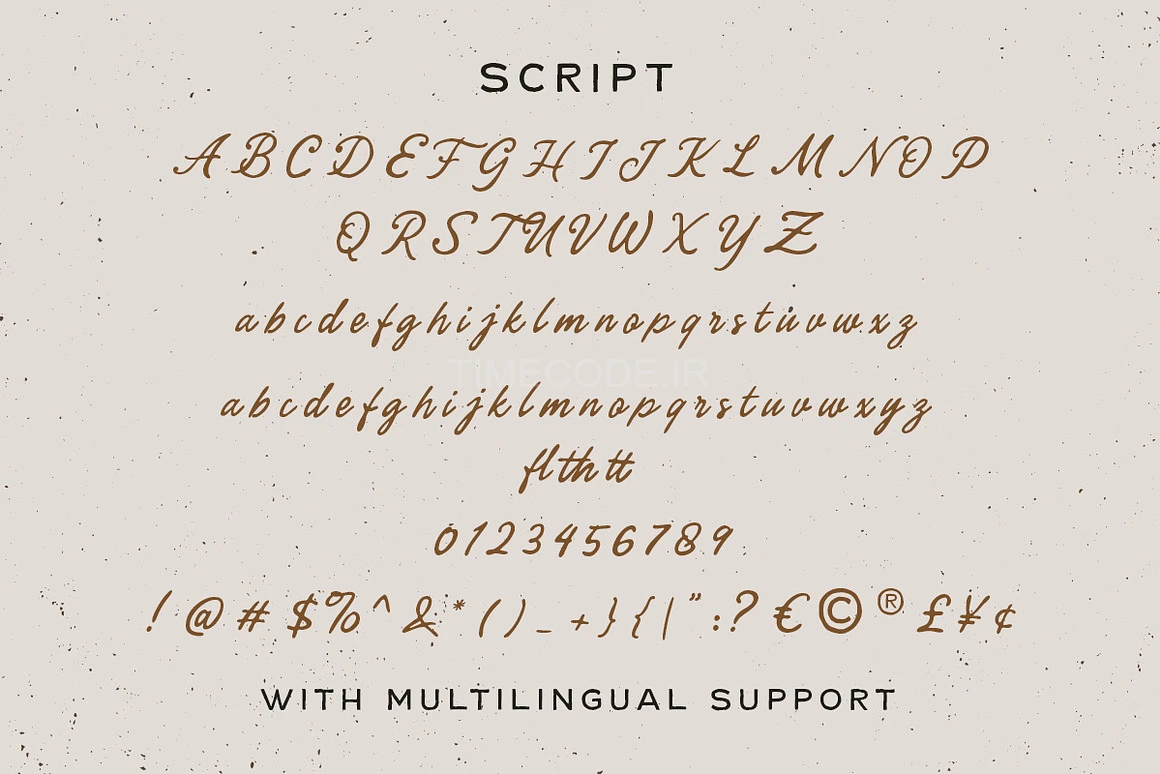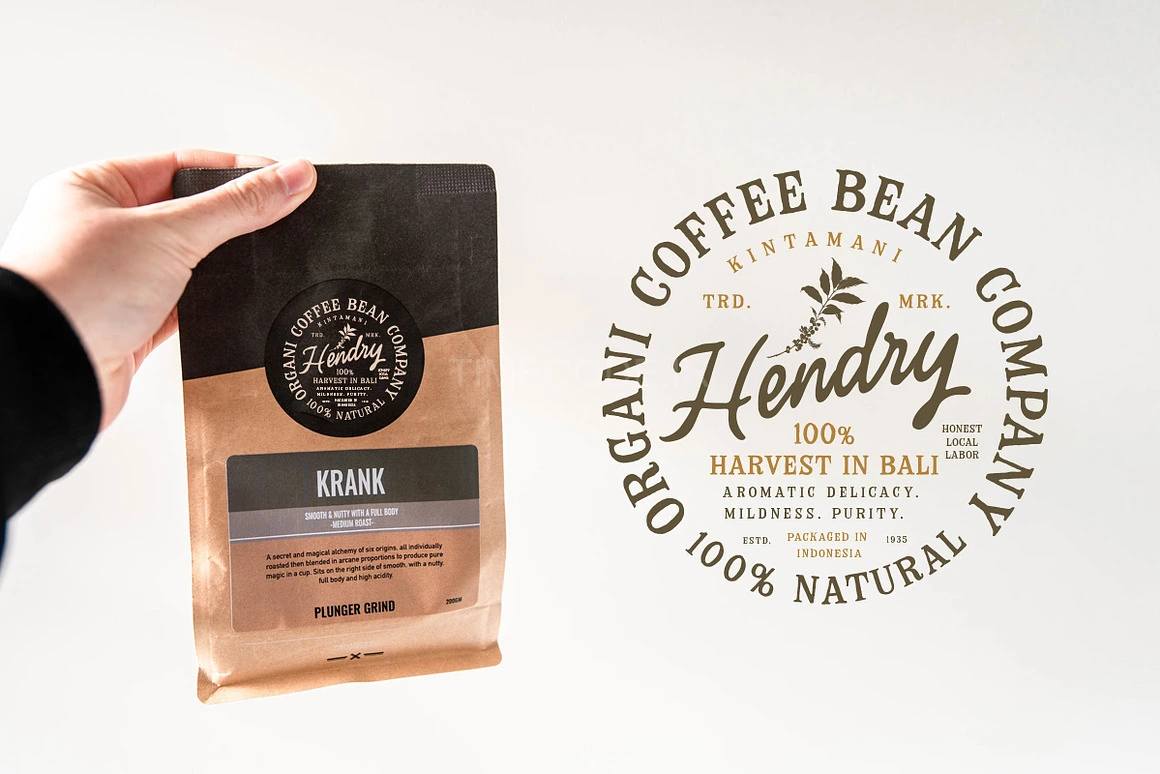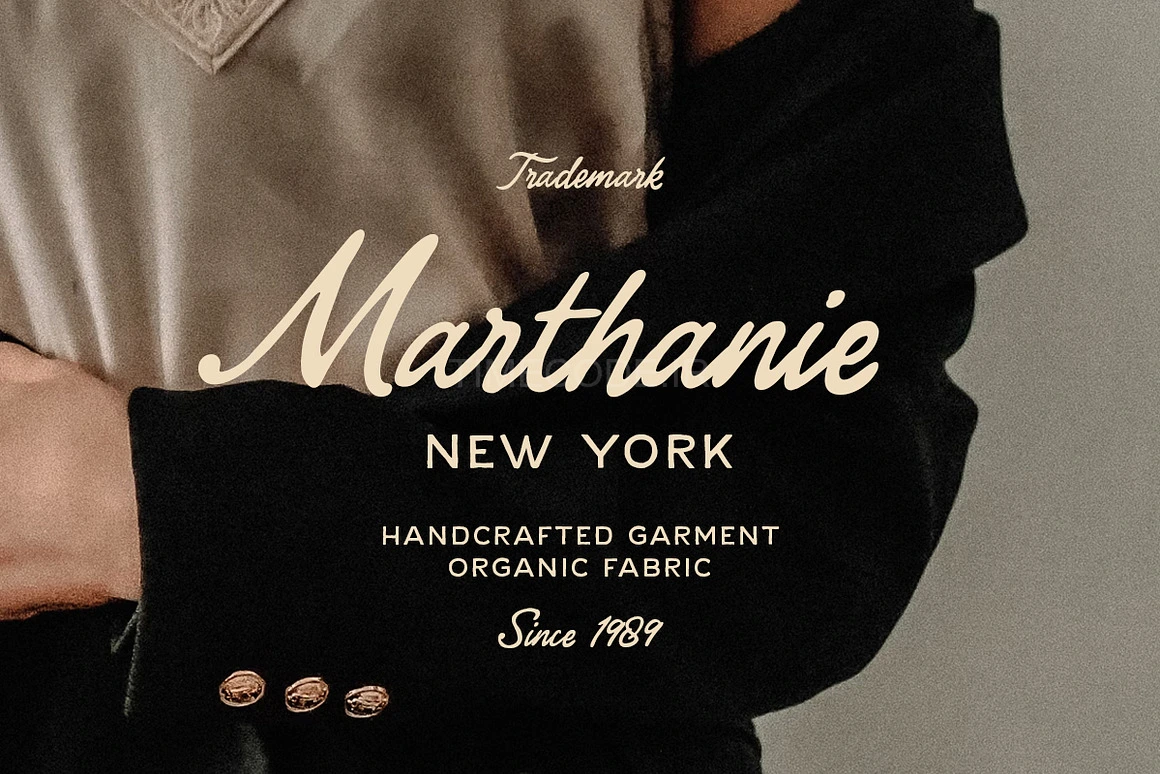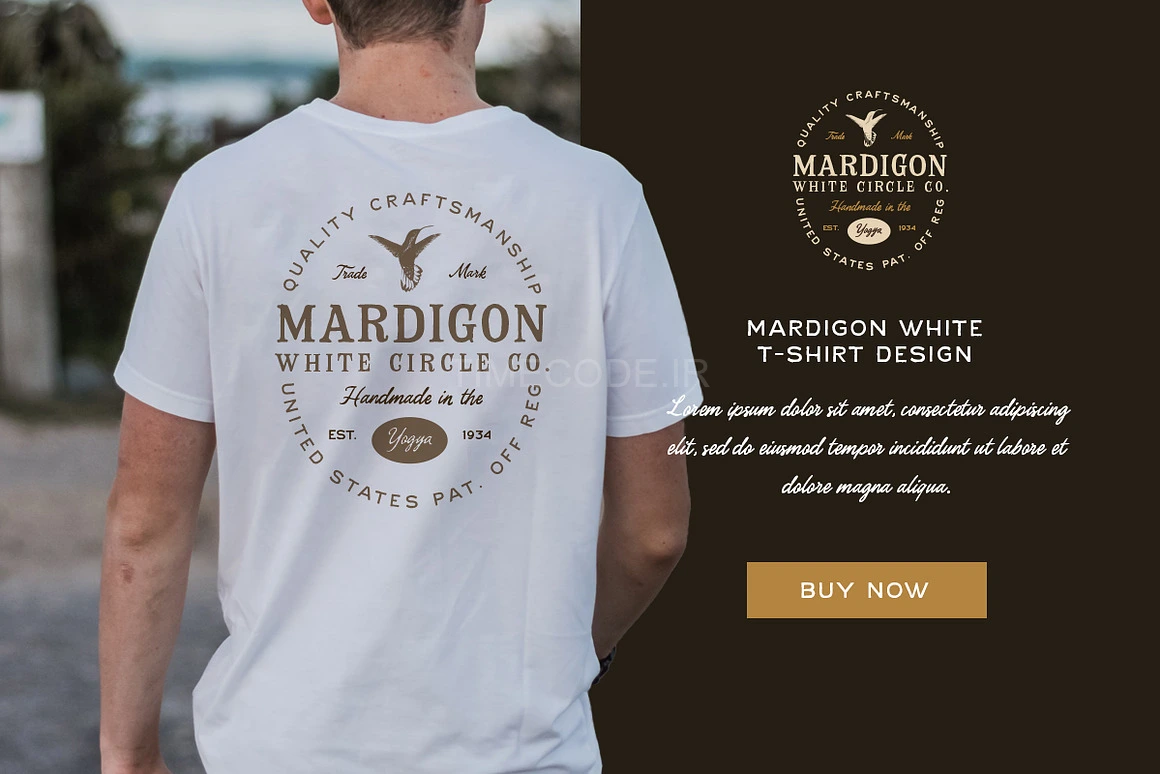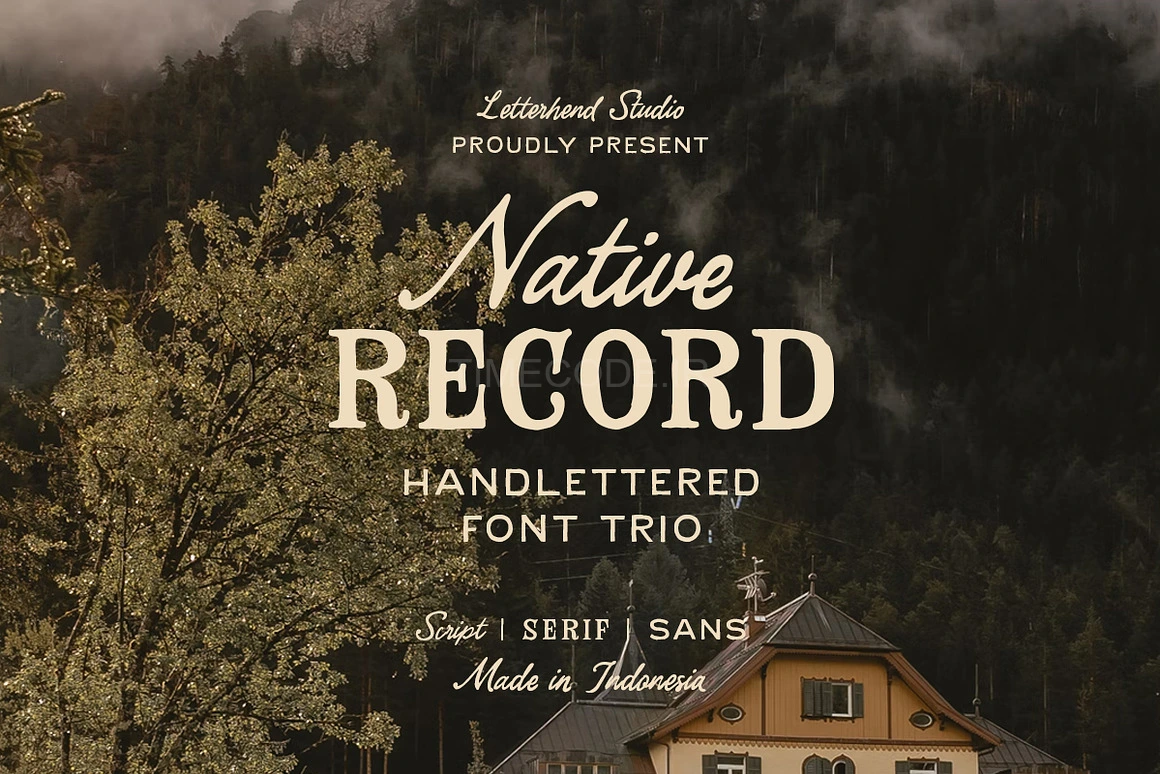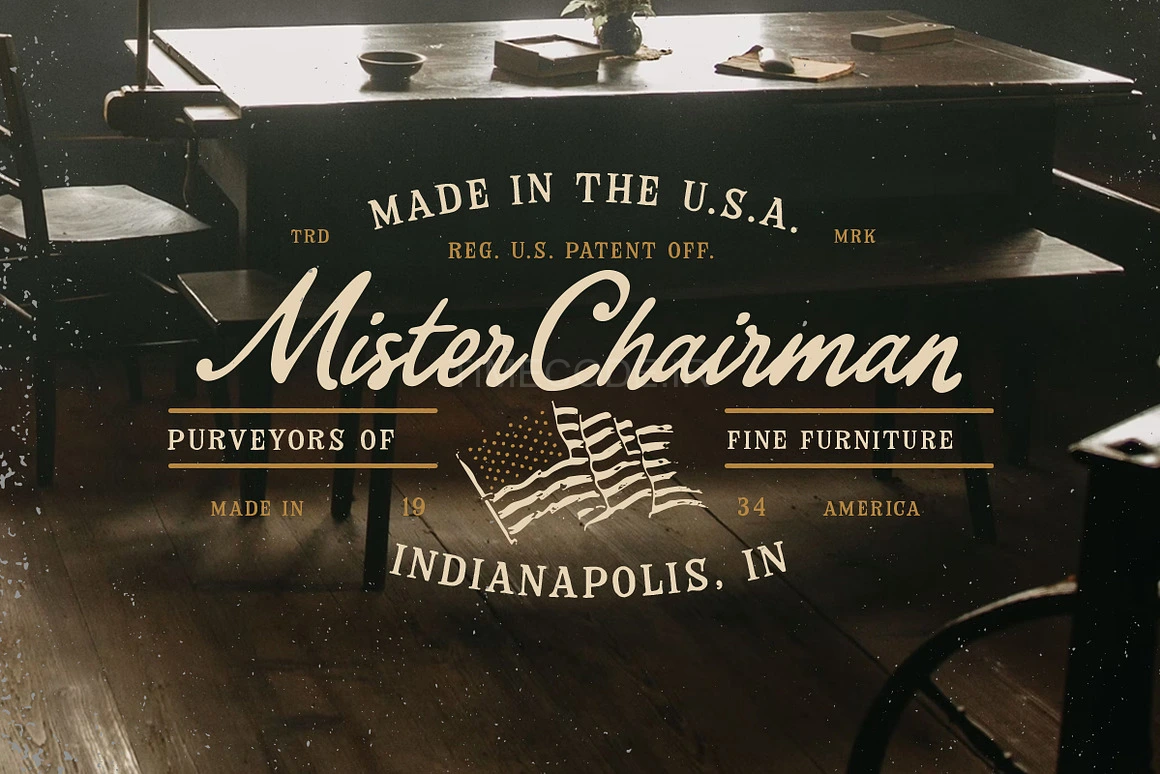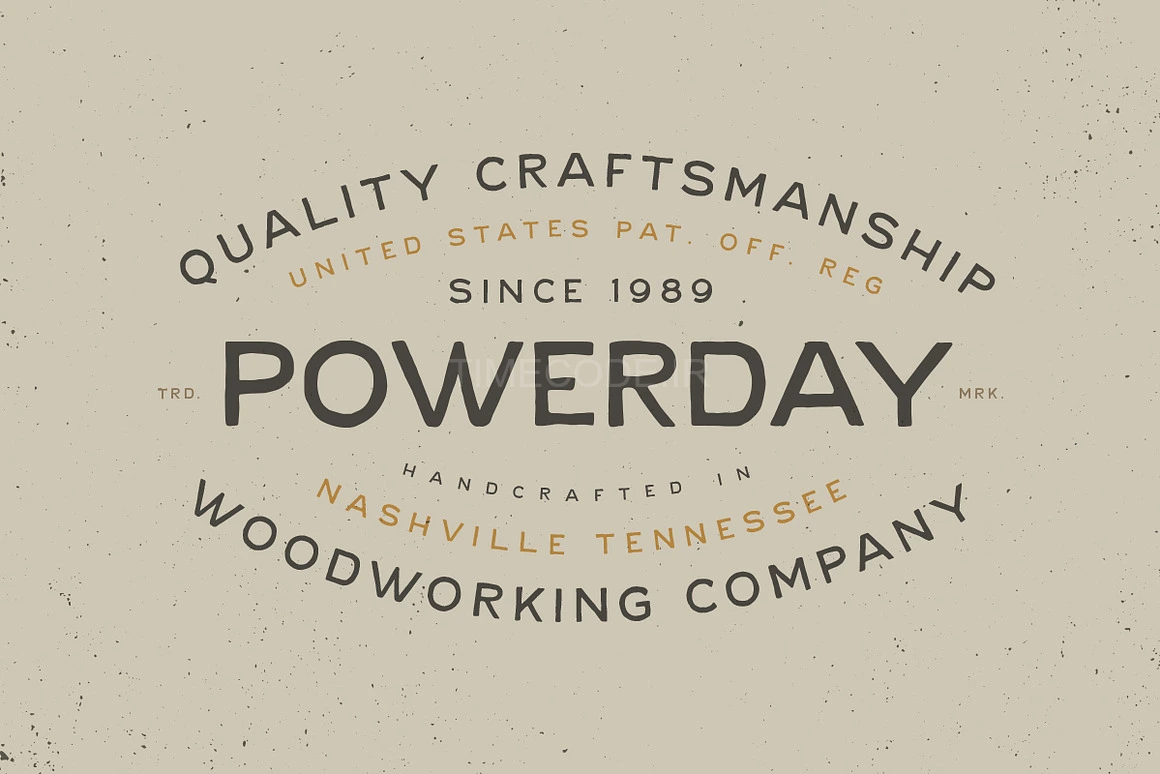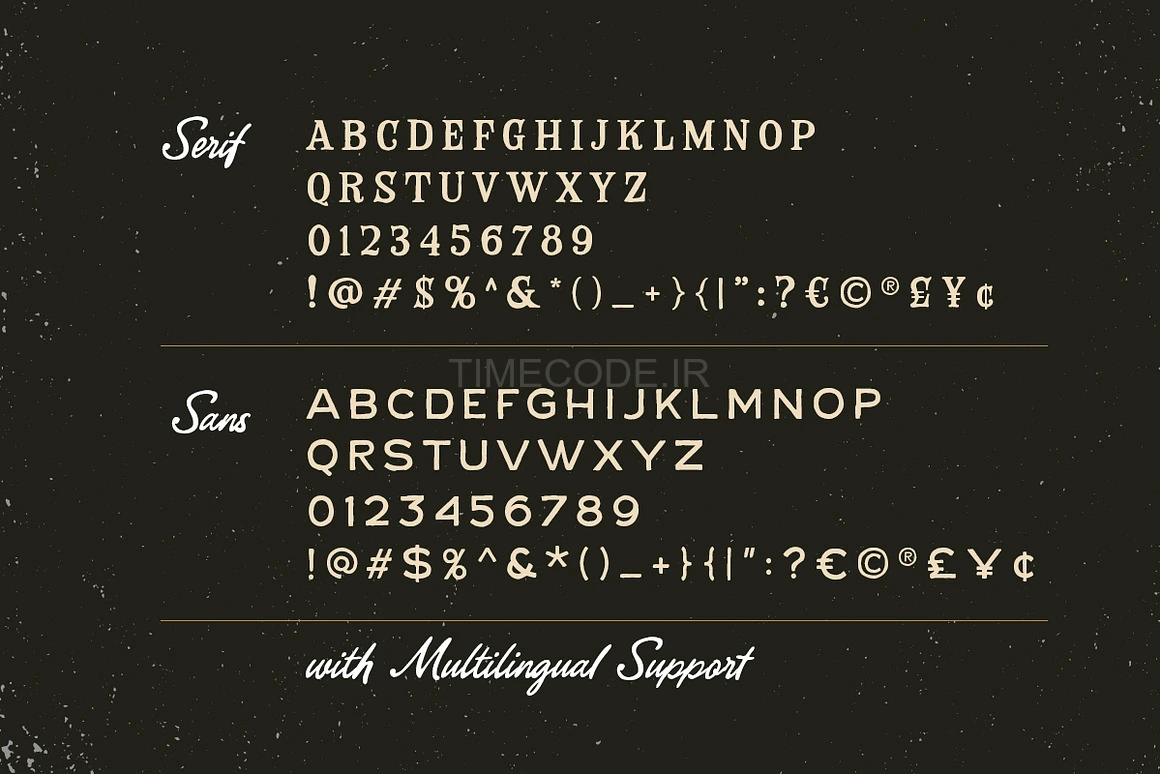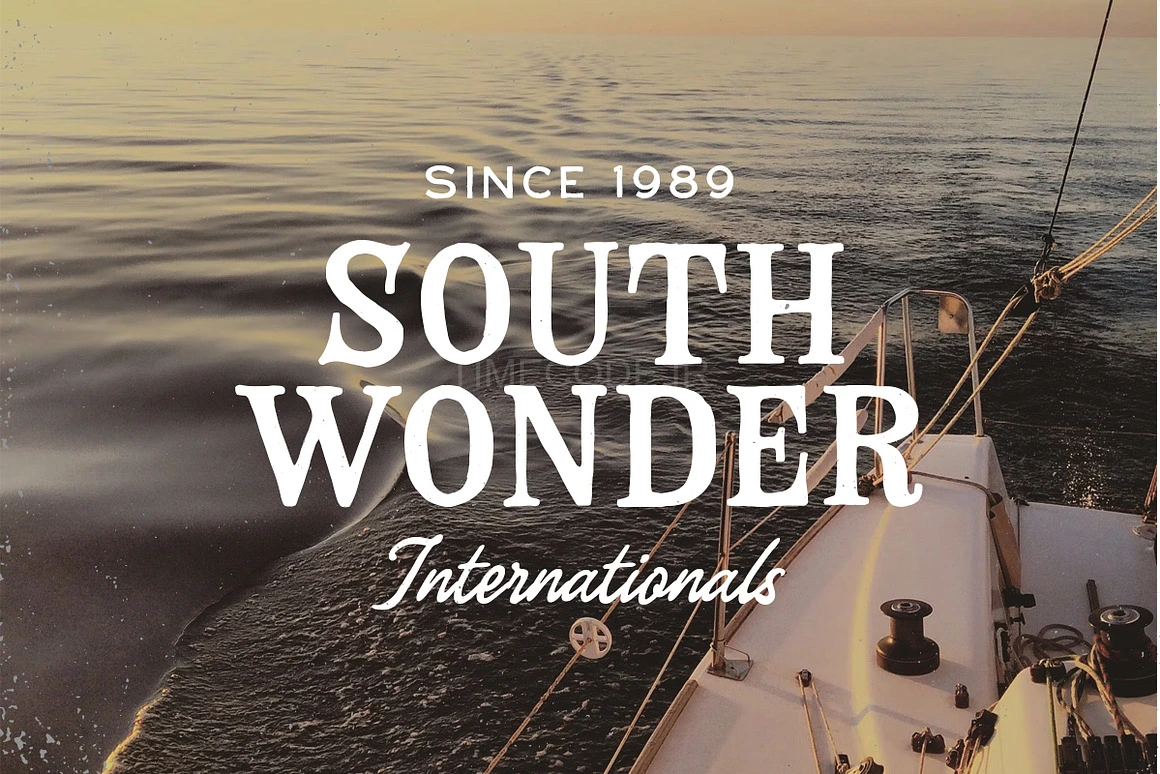
The Native Record font trio is a true country classic, bringing the warmth of handcrafted lettering and the charm of old-time typography right to your designs. It comes witj sans, serif and script. Together, these styles create a versatile and dynamic combination that enhances both traditional and contemporary design projects.
Features :
- Uppercase & lowercase
- Numbers and punctuation
- Alternates & Ligatures
- Multilingual Support